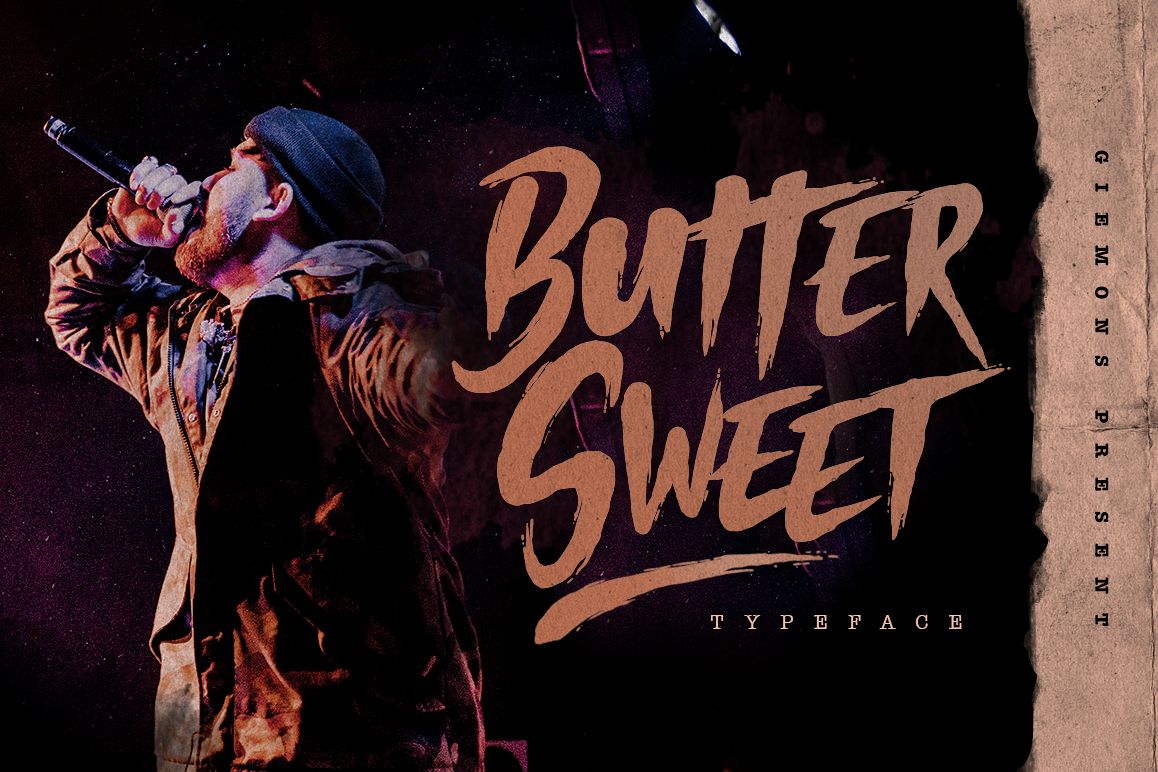
Butter Sweet Typeface
a Butter Sweet Typeface is Display Font. Can make it easier to convey the message in your design. Use for awesome display, labeling, clothing, movie sceen, poster, movie title, gigs, album covers, logos, and much more.Include :